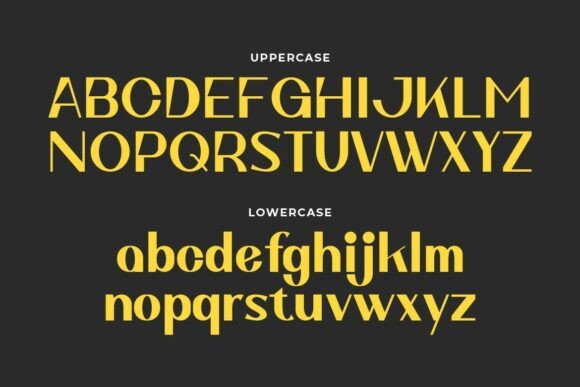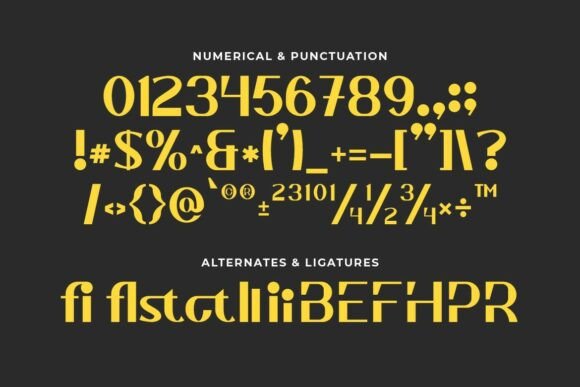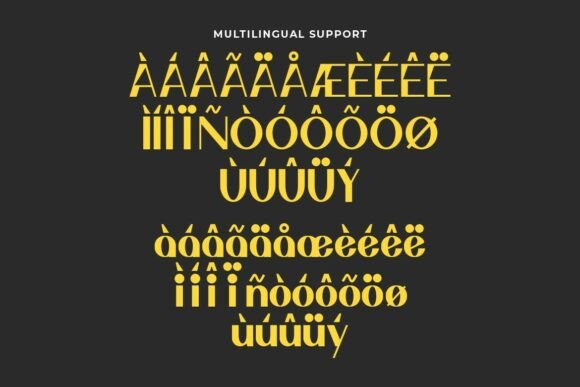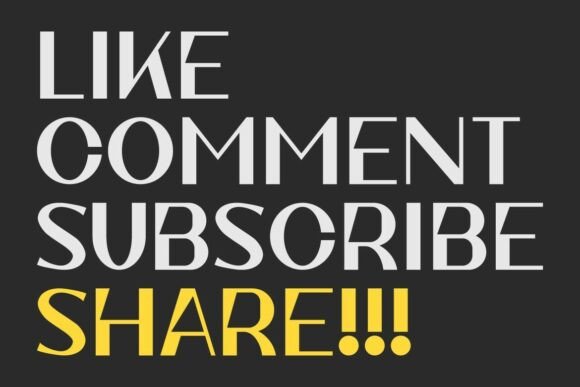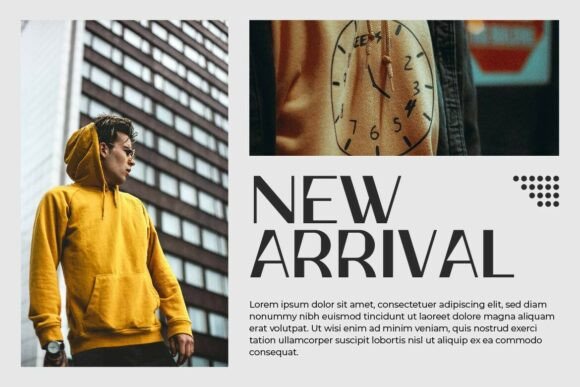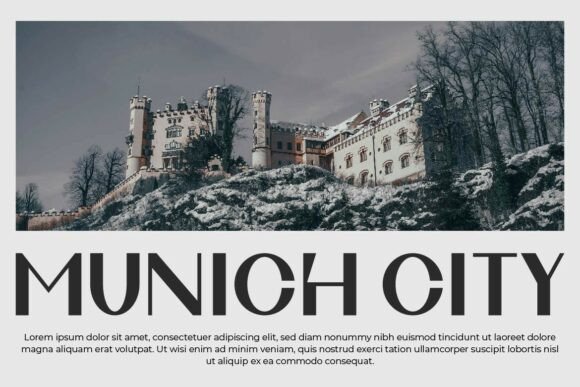
Unlocking the Power of Typography: The Areto Font
Have you ever stared at a blank canvas, waiting for the perfect idea to strike? The blank page can be intimidating, but it’s moments like these that spark creativity. For designers, the search for the perfect font is a constant quest. One that can make or break the visual identity of a project.
Enter the Areto Font, a modern sans serif designed to bring clarity and character to your visual projects. With its clean lines, geometric construction, and subtle uniqueness, Areto stands out as the perfect choice for branding, logos, packaging, posters, and digital content. For designers, Areto Font offers a versatile solution that can elevate any project and leave a lasting impression.
Areto Font Key Features
- Unique Characteristics: The font features a unique blend of modern and classic elements, with intricate details and subtle nuances that set it apart from other fonts.
- Language Support: Areto Font supports a wide range of languages, including Latin, Cyrillic, and Greek alphabets, making it a versatile choice for multilingual designs.
- Font Styles: The font family includes a range of styles, from light to bold, and italic to oblique, providing designers with flexibility and creative freedom.
Designer Review: Areto Font
As a designer, I’ve had the chance to work with various fonts, and my experience with Areto has been quite interesting.
- Unique and modern design: Areto Font boasts a sleek, contemporary aesthetic that’s perfect for modern and minimalist designs.
- High legibility: The font’s design ensures that text remains clear and easy to read, even at smaller font sizes.
- Font weight flexibility: Areto comes with multiple weight options, allowing for a range of styles to suit different design needs.
- Limited character set: Areto’s character set is somewhat limited, which may not be ideal for projects requiring a wide range of special characters.
- Not ideal for small text: While Areto is legible, it may not be the best choice for very small text sizes, where readability can be compromised.
- Lack of italic and bold-italic styles: Areto is missing italic and bold-italic variations, which can limit its usability in certain design contexts.
Overall, Areto Font is a solid choice for modern design projects. While it has some limitations, its unique design, high legibility, and font weight flexibility make it a worthwhile addition to any designer’s toolkit.
Getting the Most Out of Areto Font
For best results, use Areto Font for headings and titles, as it is a bold and modern font.
Experiment with different font sizes and colors to create visual hierarchy and emphasis.
Areto Font is ideal for:
- Modern business presentations and reports.
- Graphic design projects that require a bold and eye-catching font.
- Web design projects that need a clean and modern font.
Alternatives to Areto Font
Montserrat is a sans-serif font designed by Julieta Ulanovsky. It is a popular choice for digital interfaces due to its clean and modern appearance. Montserrat is ideal for use in headings, titles, and body text where a clear and legible font is required. Compared to Areto Font, Montserrat has a more geometric and structured feel, making it a better choice for modern and minimalist designs.
Open Sans is a clean and modern sans-serif font designed by Steve Matteson. It is highly legible and versatile, making it suitable for a wide range of applications. Open Sans is a good choice for body text, as it is easy to read and comprehend. Compared to Areto Font, Open Sans has a more neutral and understated feel, making it a better choice for designs where a clear and concise font is required.
Lato is a sans-serif font designed by Łukasz Dziedzic. It has a modern and clean appearance, with a strong emphasis on legibility. Lato is ideal for use in headings, titles, and body text where a clear and modern font is required. Compared to Areto Font, Lato has a more rounded and friendly feel, making it a better choice for designs where a warm and approachable font is required.